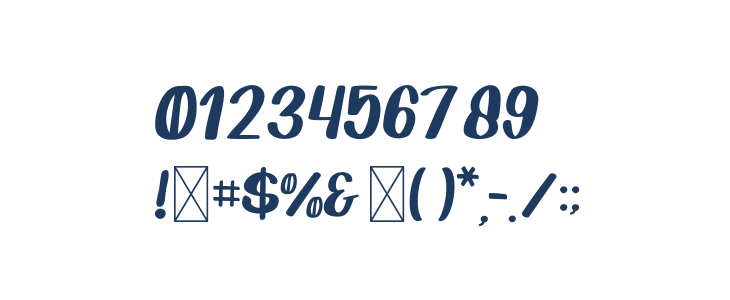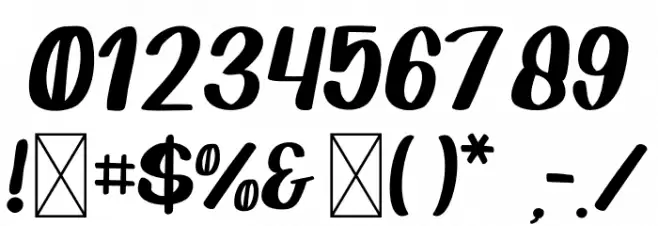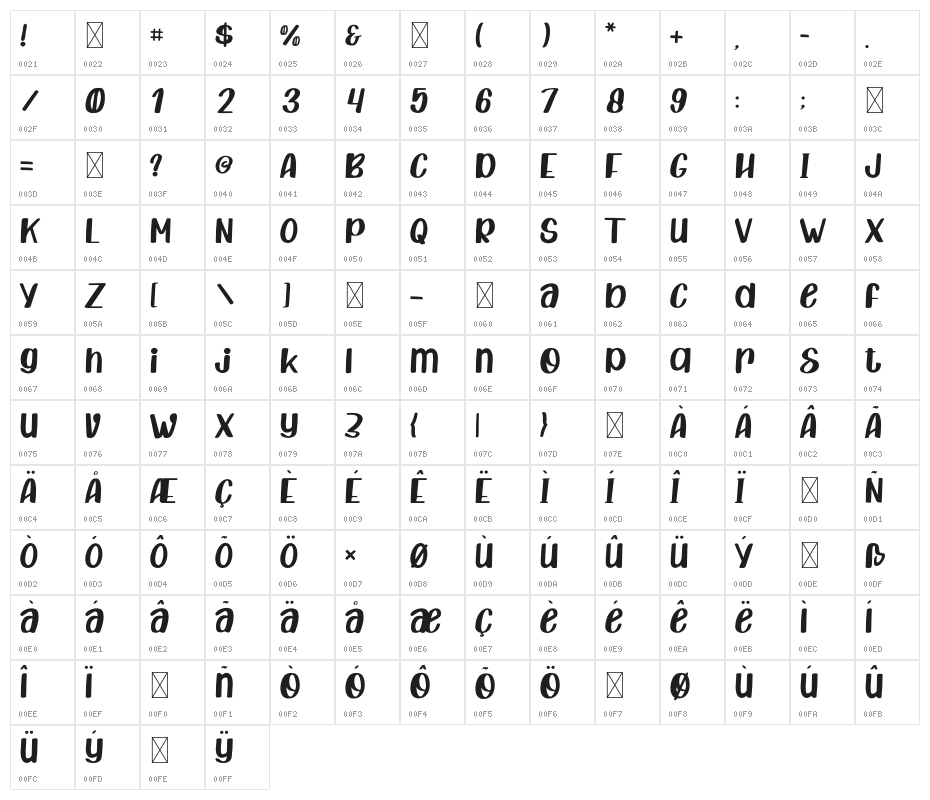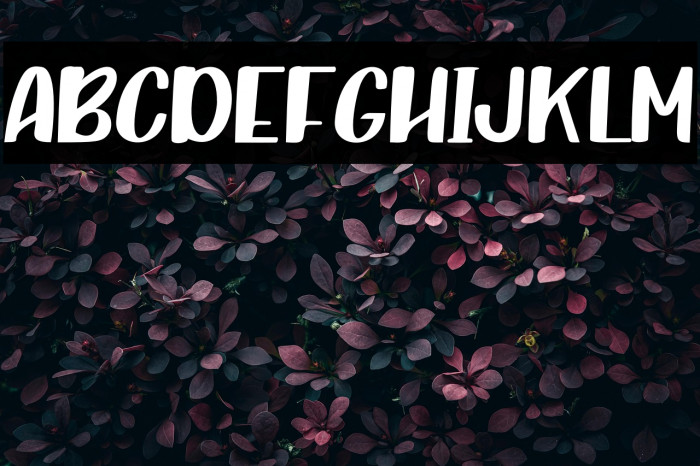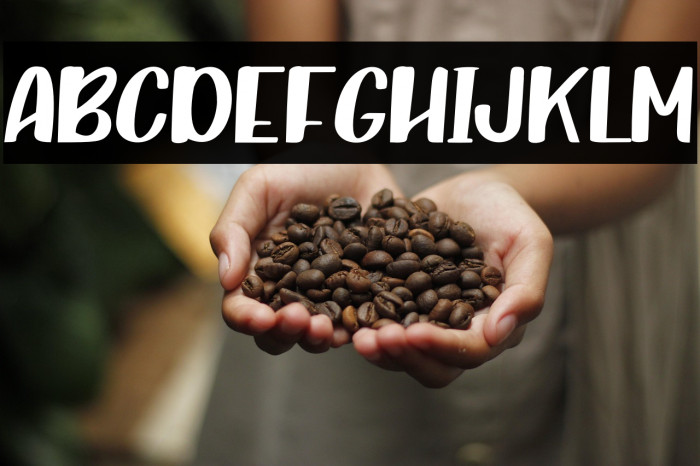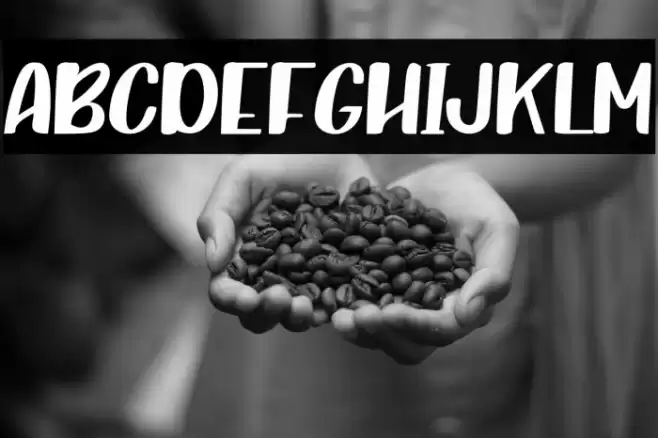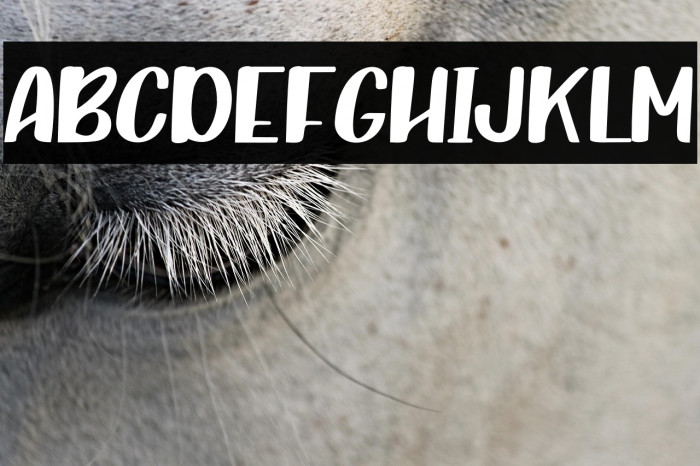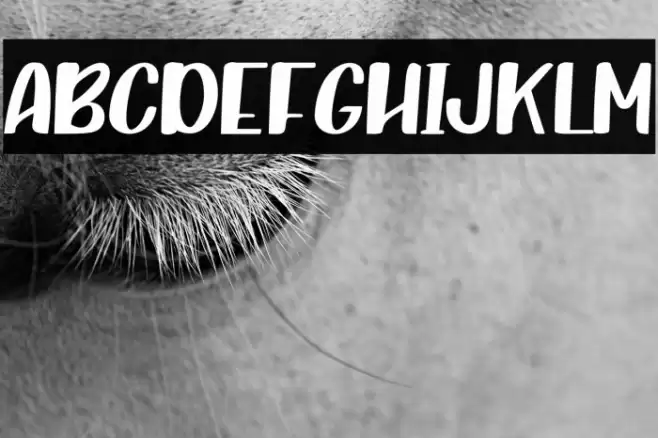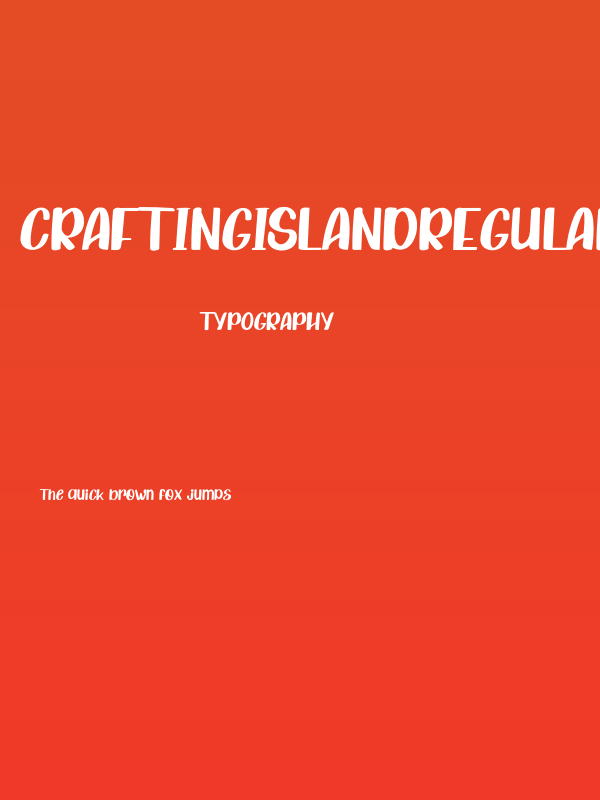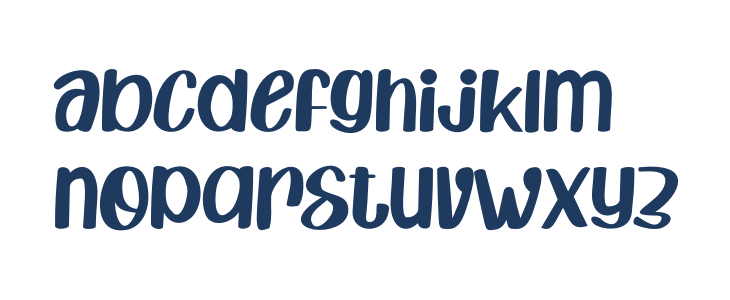
CraftingIslandRegular Font
CraftingIslandRegular Description
This font features a bold and playful style with a handwritten feel, characterized by its thick strokes and rounded edges. The uppercase letters are slightly taller than the lowercase, giving it a dynamic and lively appearance. The numbers and special characters maintain the same playful aesthetic, making it suitable for creative and informal designs. The overall look is cohesive, with consistent stroke widths and smooth curves that enhance its readability while maintaining a fun and engaging vibe.